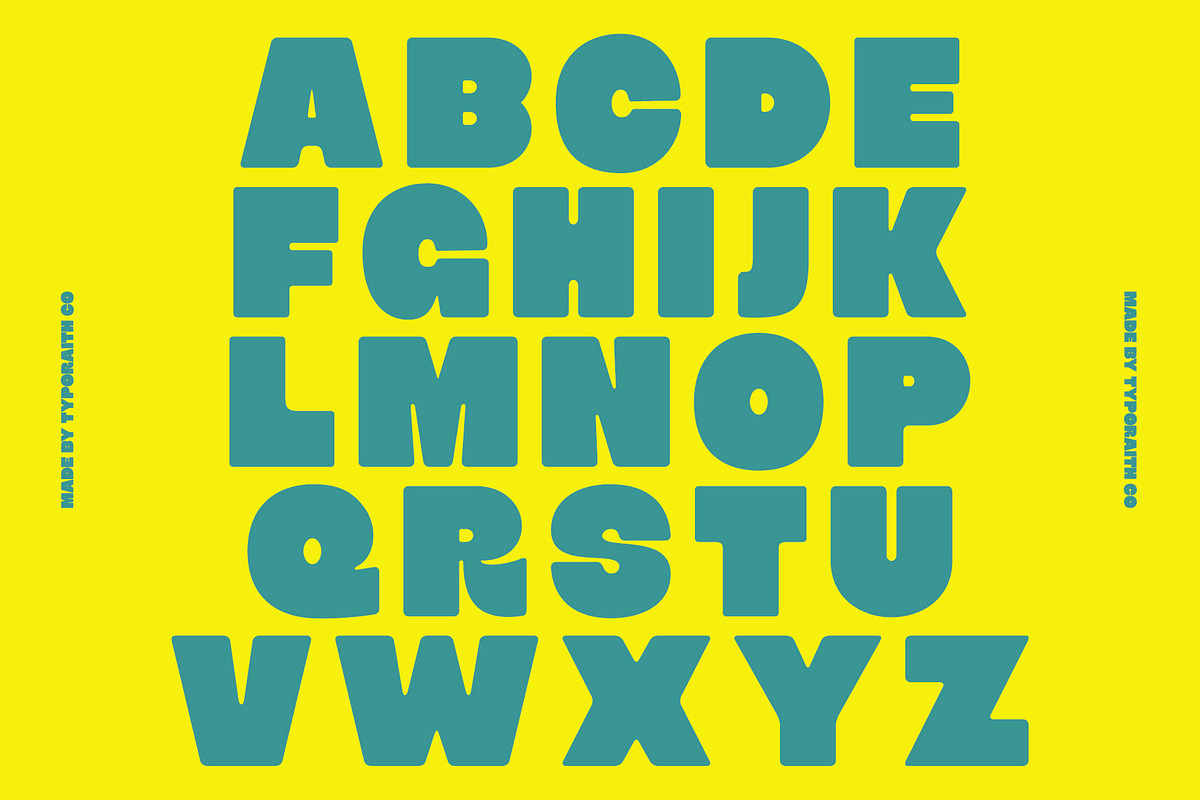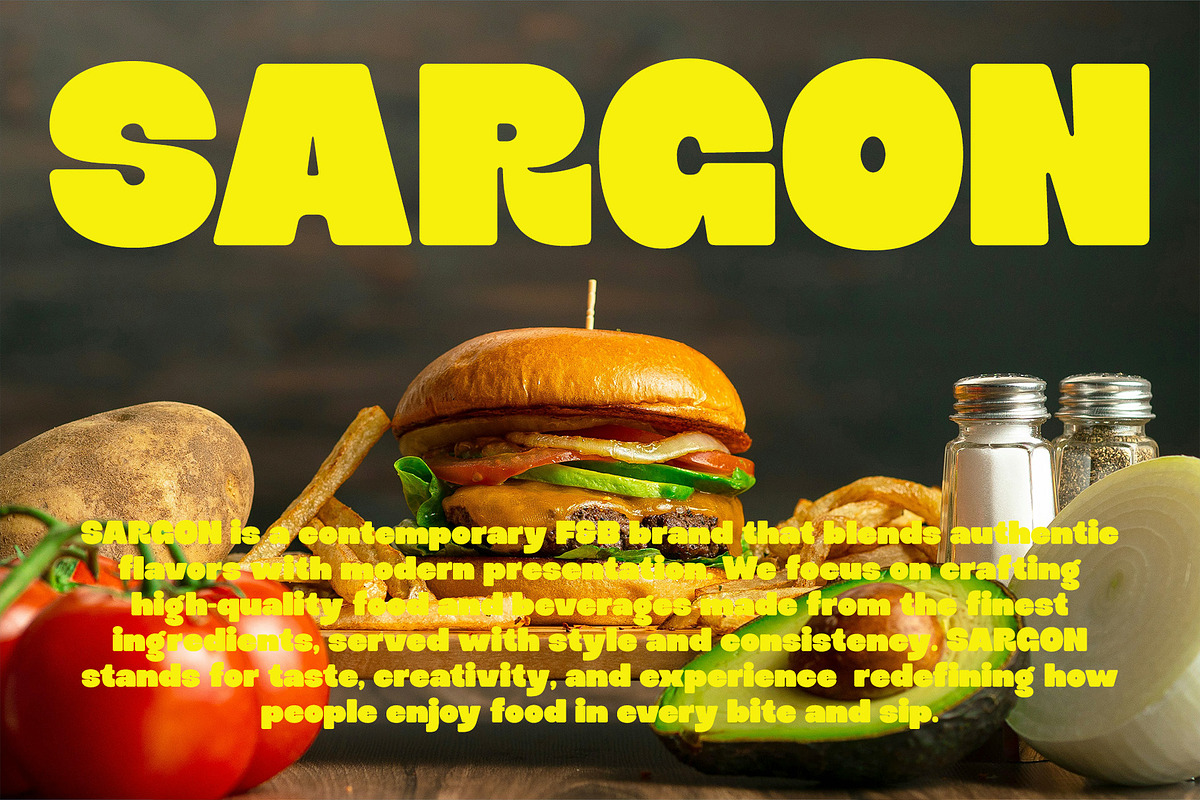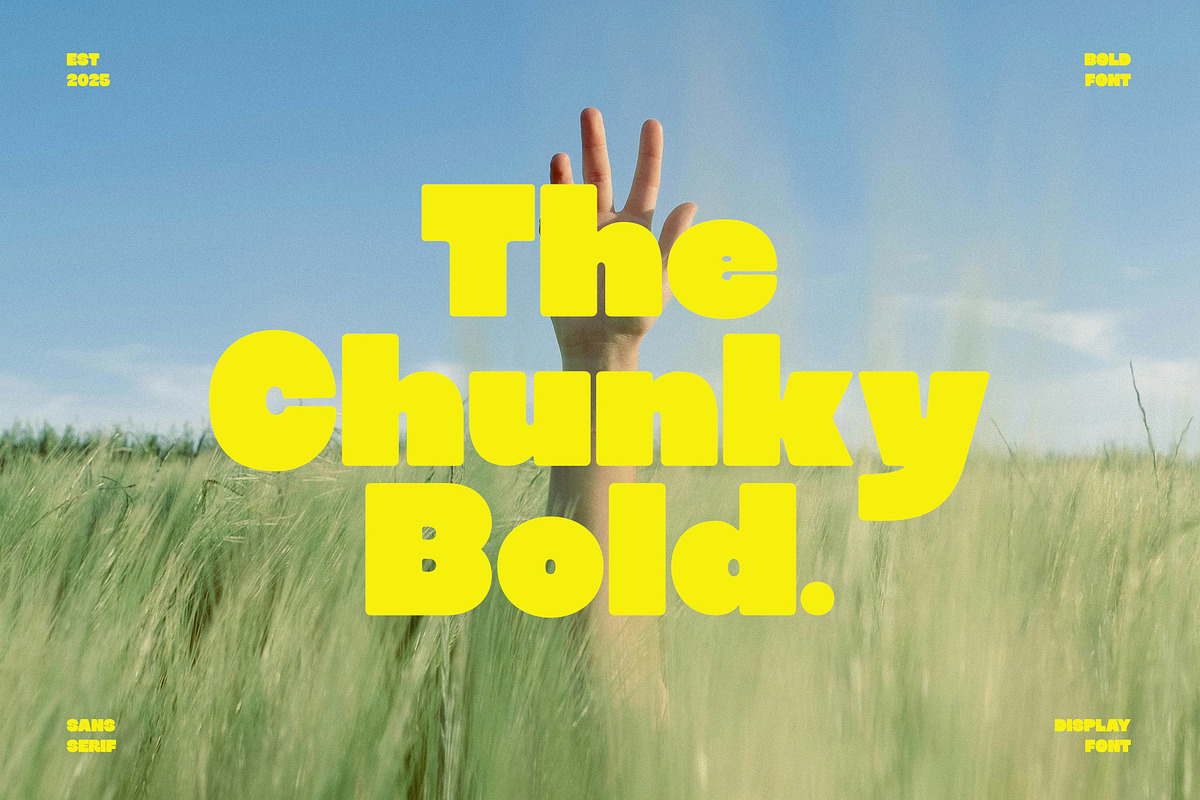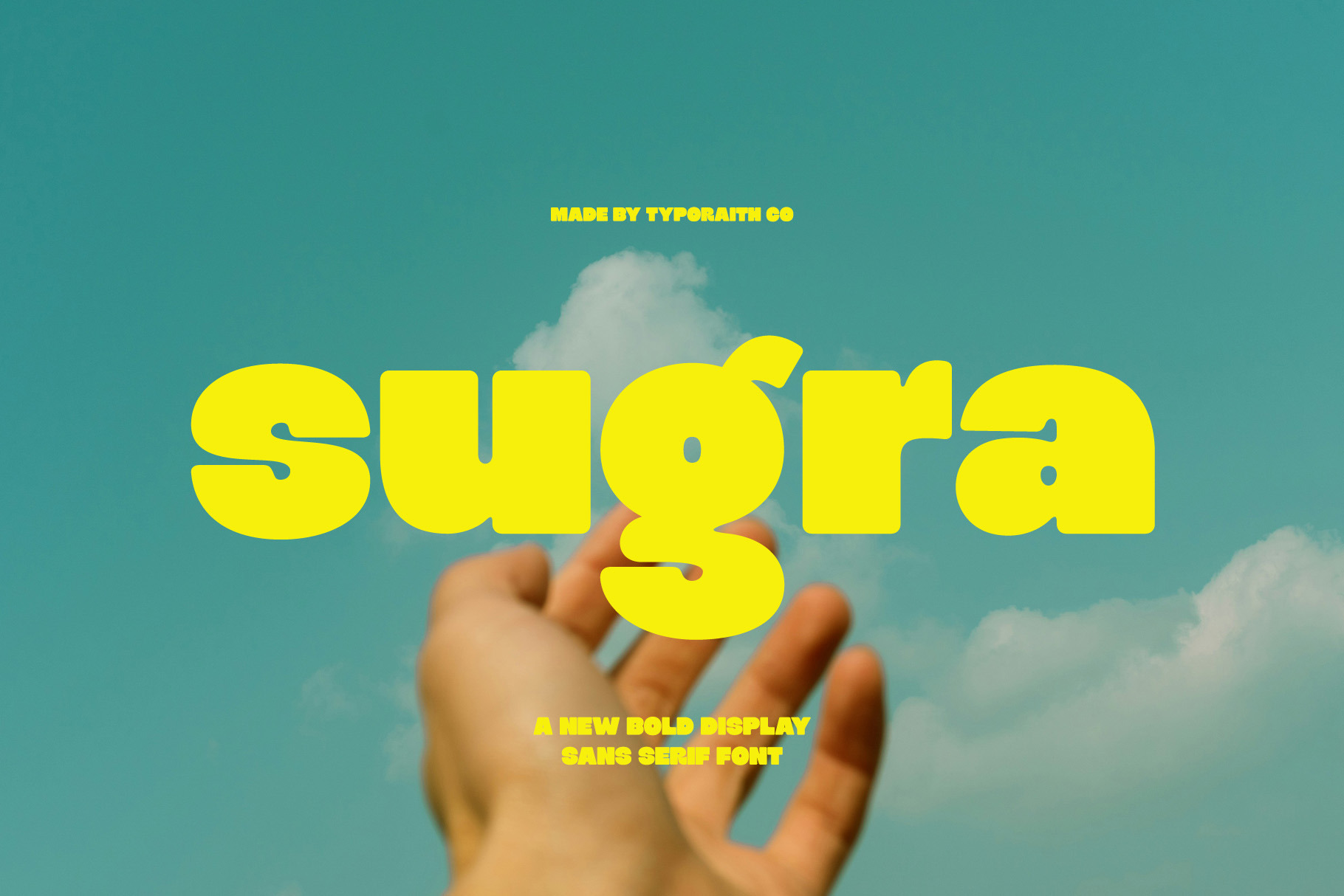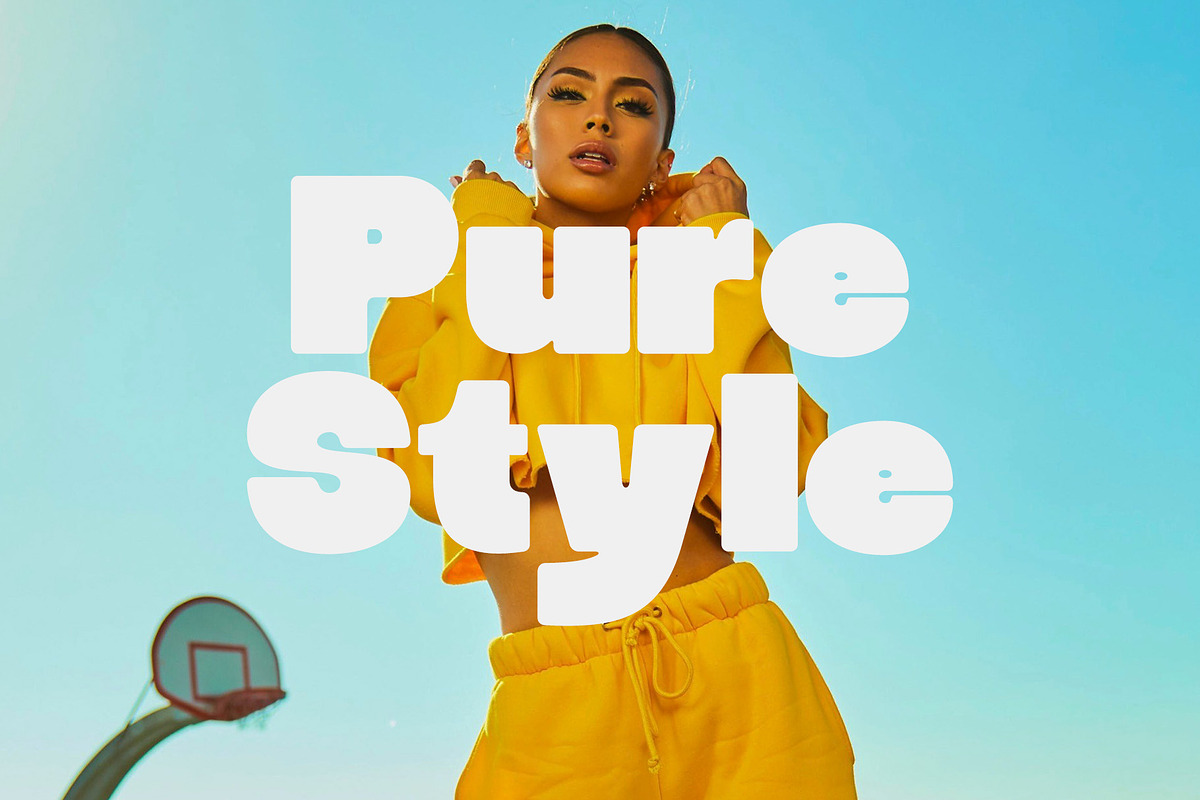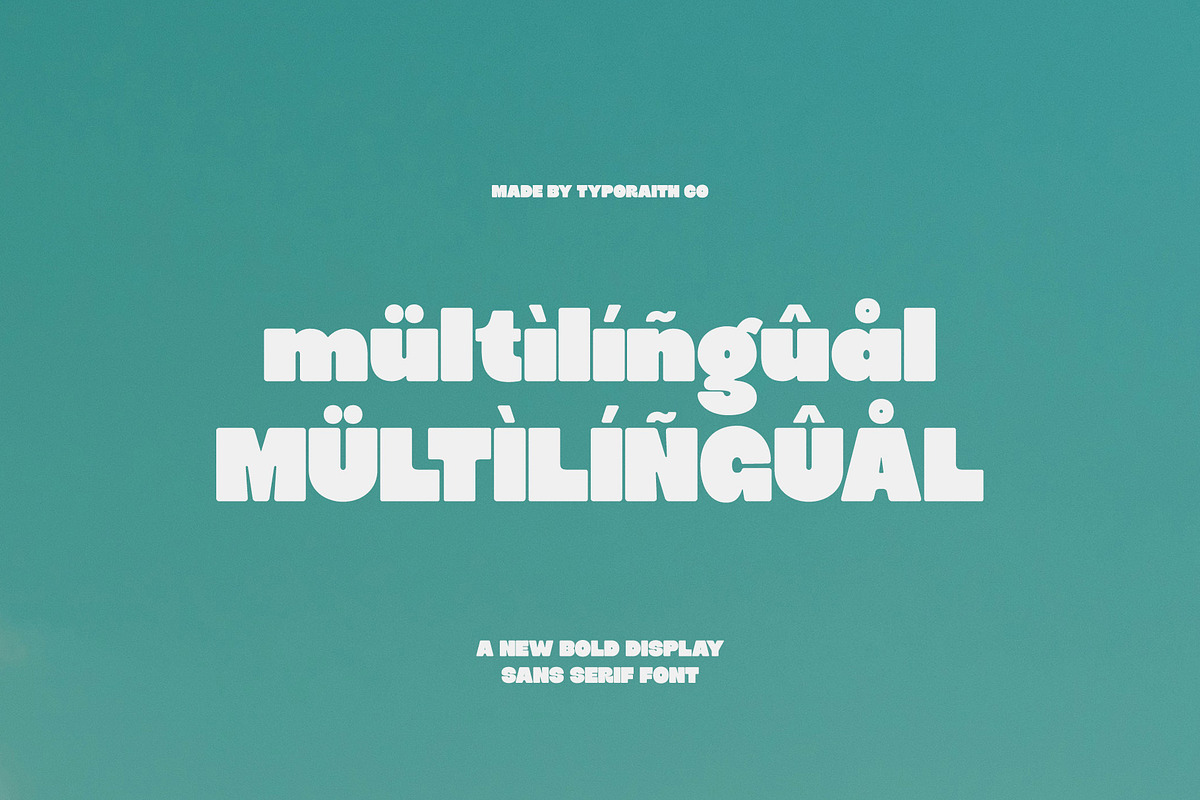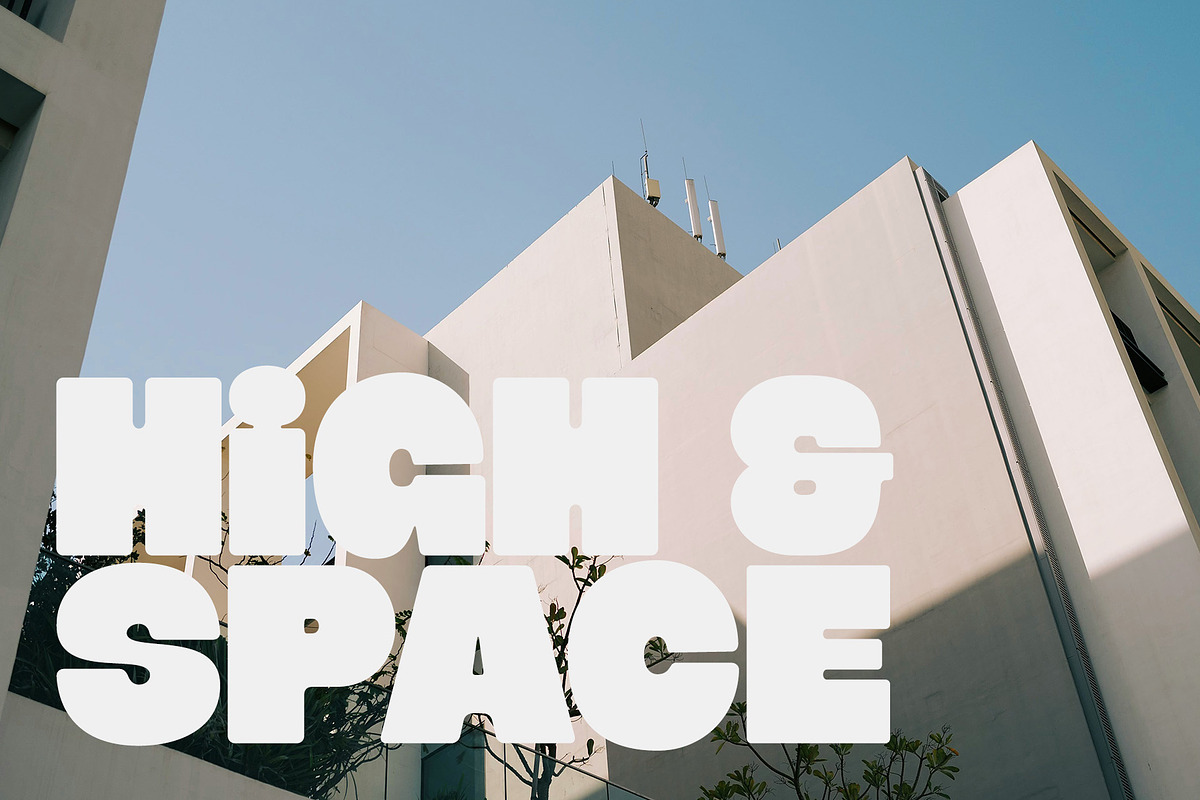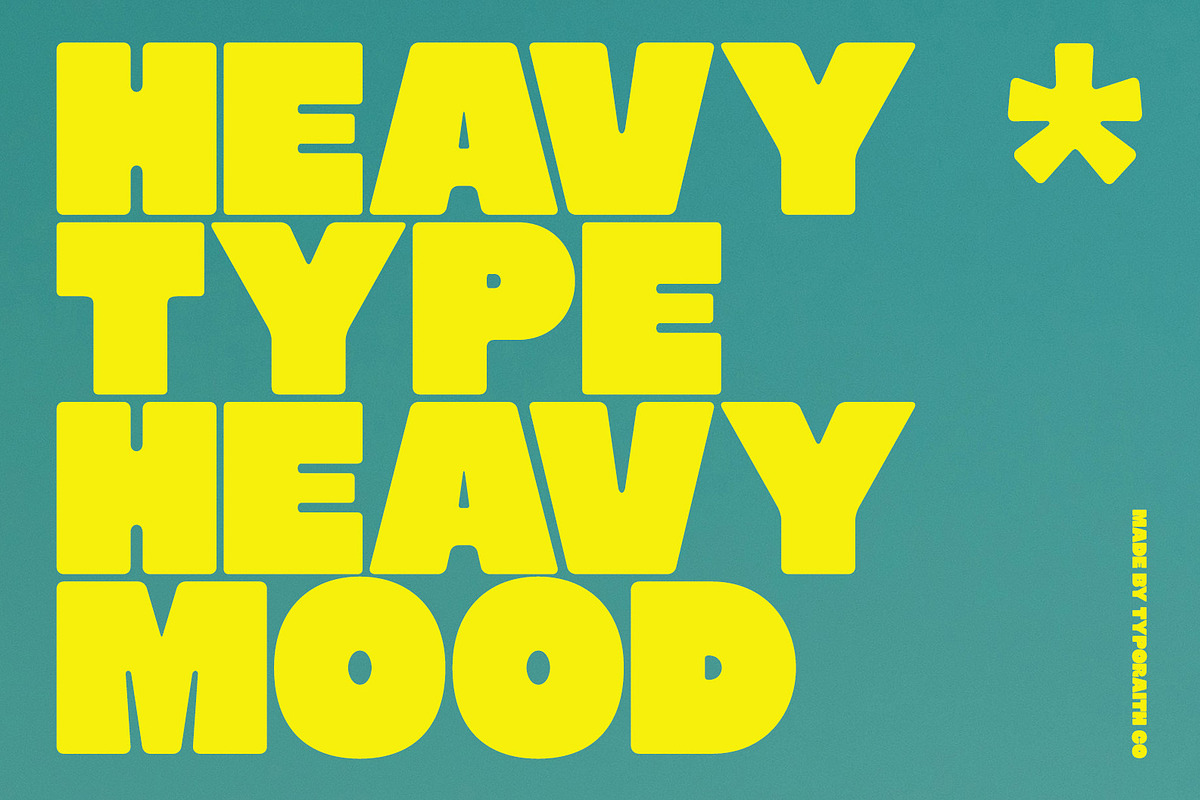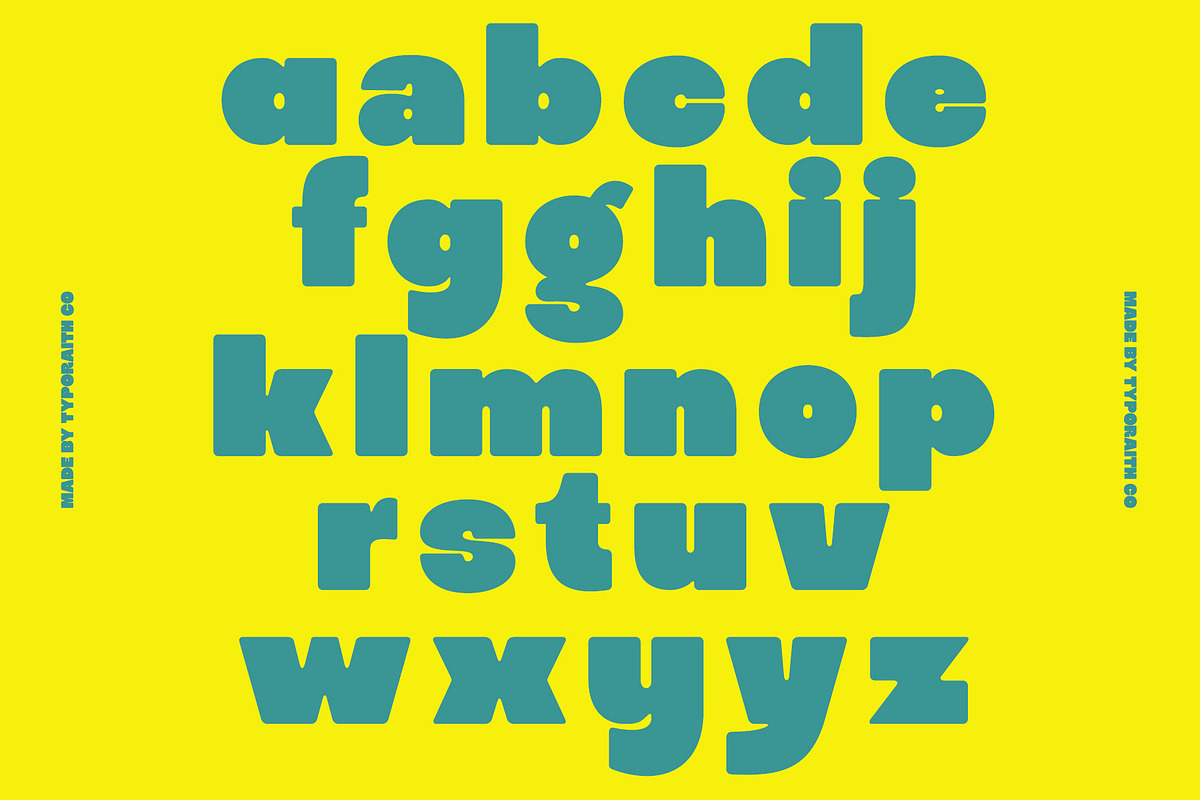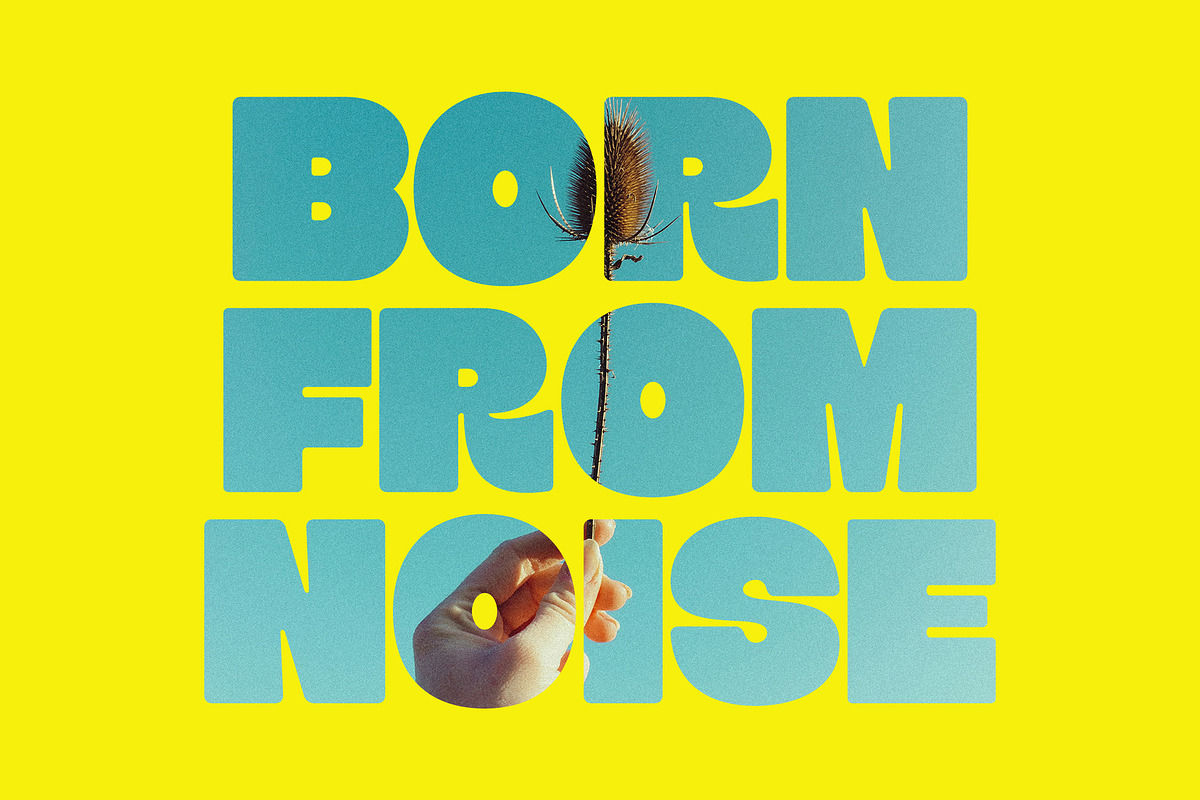
Sugra | Bold Display Sans Serif Font
Bring boldness and positivity to your design with Sugra, a chunky sans serif font that combines softness and strength. Its rounded corners and playful curves make it perfect for posters, headlines, logos, packaging, and modern branding.
Sugra brings a fresh and friendly vibe, ideal for designs that need to stand out while staying approachable. Whether you’re crafting a retro-inspired design or a modern minimalist layout, Sugra adds personality and charm to every project.
Perfect for display use: Logo, Branding, Magazine Titles, and Posters